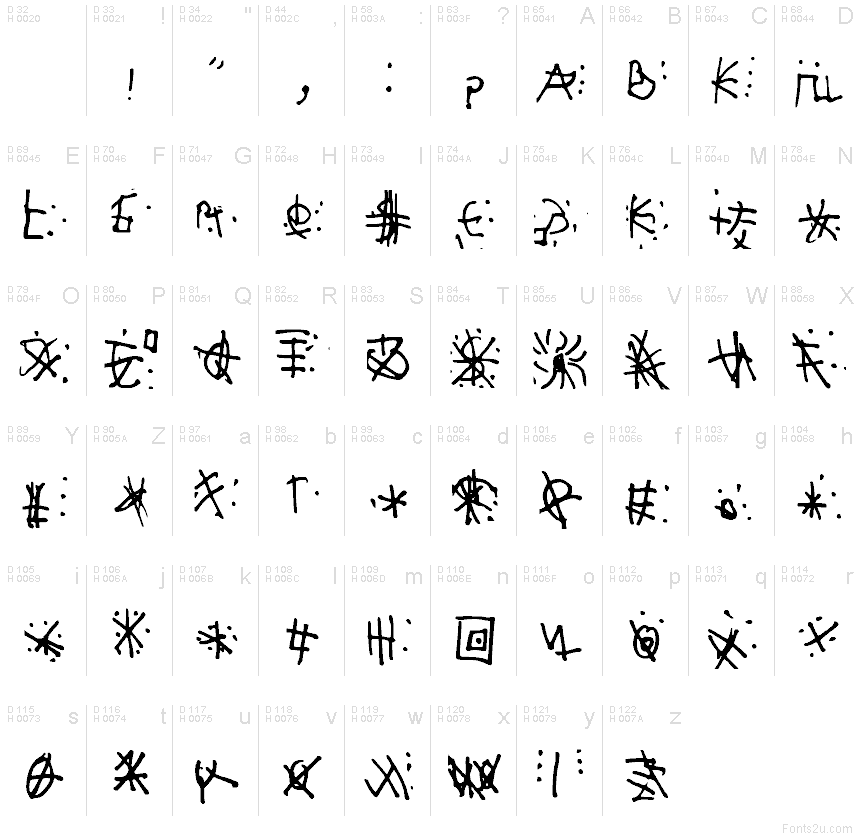
Lucas Masabel Font Regular
Lucas Masabel Font font by Lucas Masabel is a free dingbats typeface that trades letters for wiry, hand‑drawn symbols—spikes, sunbursts, arrows, and mask‑like marks that feel scratched into paper. The strokes are jittery and ink‑raw, giving each glyph a talismanic vibe that reads more like ritual signage than clip art. Drop a few and the layout suddenly hums with restless energy.
Using Lucas Masabel Font, you can punctuate gig posters, indie album covers, tarot or astrology graphics, skate zines, tattoo flash sheets, festival badges, and game overlays. The symbols breathe best at larger sizes with roomy spacing; pair them with a quiet, neutral sans to keep the spotlight on the marks. This free font turns ornament into attitude.